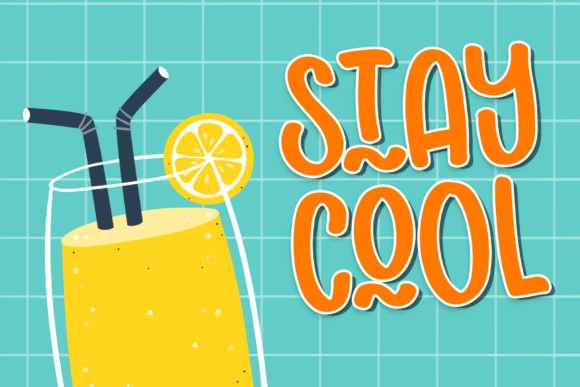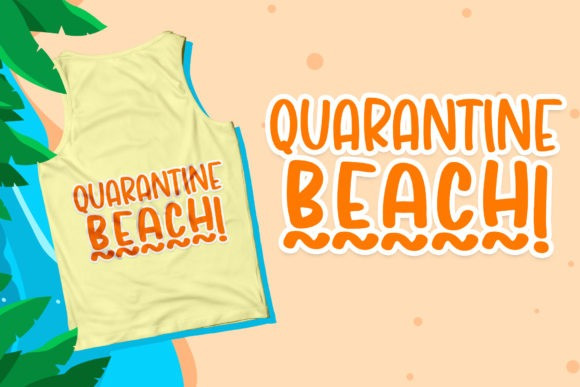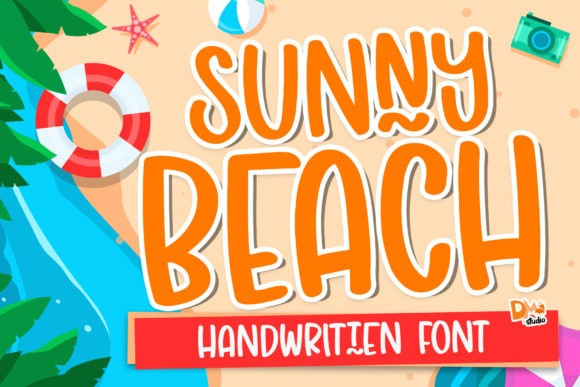
Sunny Beach Font
Sunny Beach Font is a simple and playful display font. It can be used for various purposes such as logos, headings, t-shirts, letterhead, signage, labels, news, posters, badges and so much more.